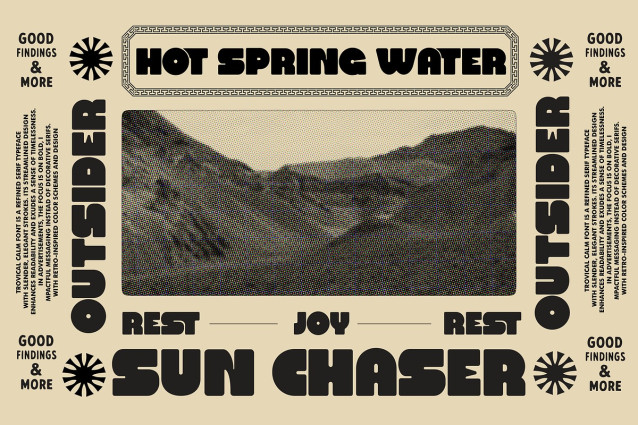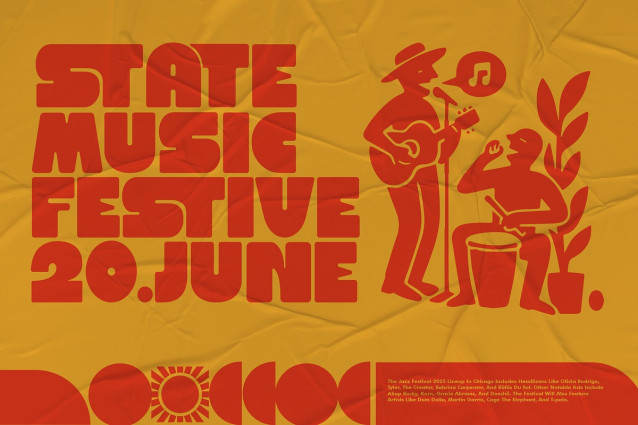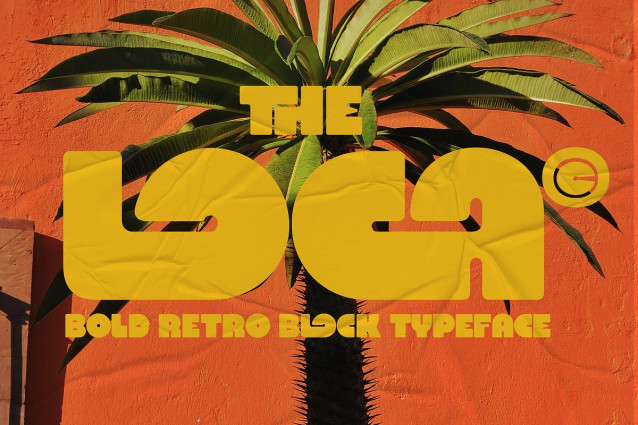
The Loca Font
The Loca Font, a bold retro block typeface that captures the essence of 70s sunshine and street culture. With its chunky shapes, rounded corners, and playful letterforms, this font brings a vibrant attitude and nostalgic charm to any design.